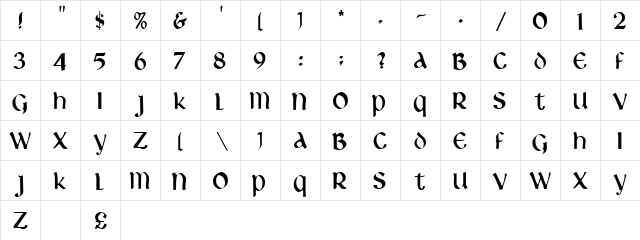
Libra Normal
Design Context for Libra Typeface
Libra is a composed and adaptable typeface that performs quietly and consistently across a wide range of design contexts.